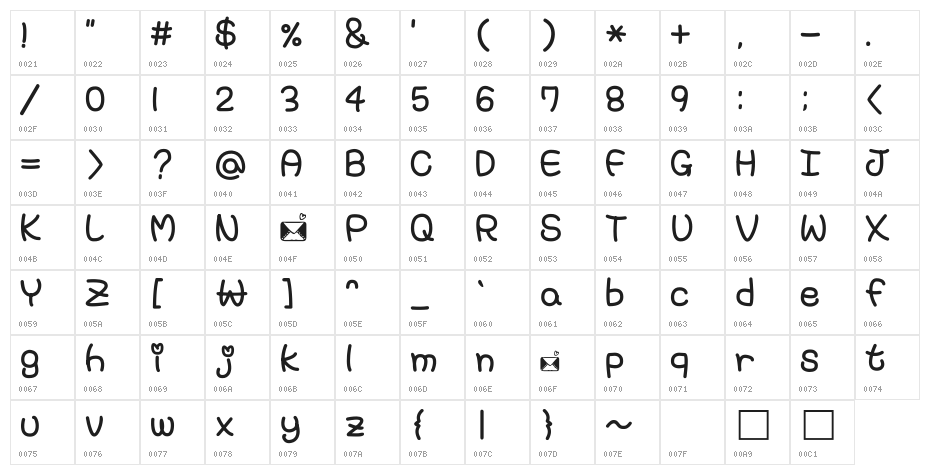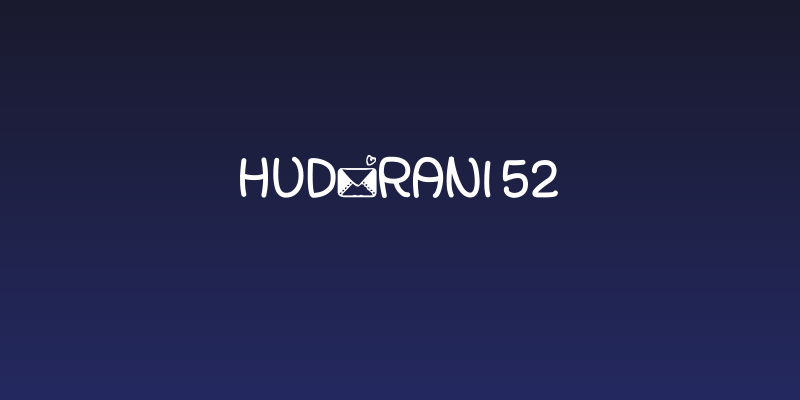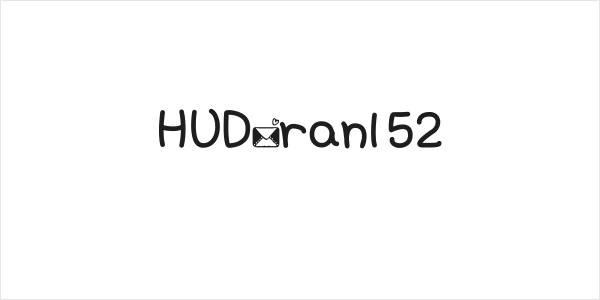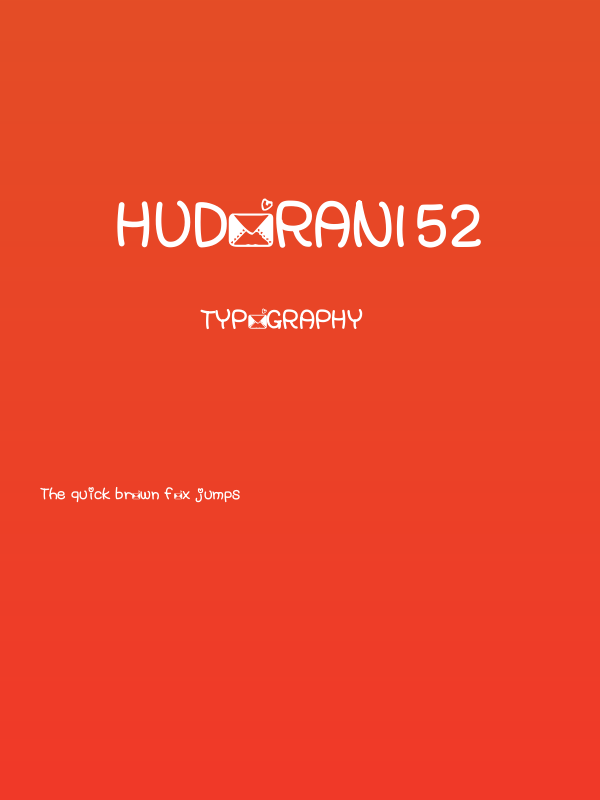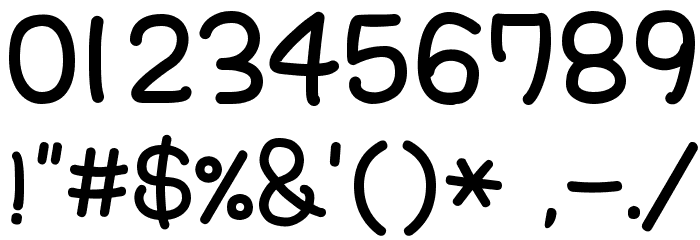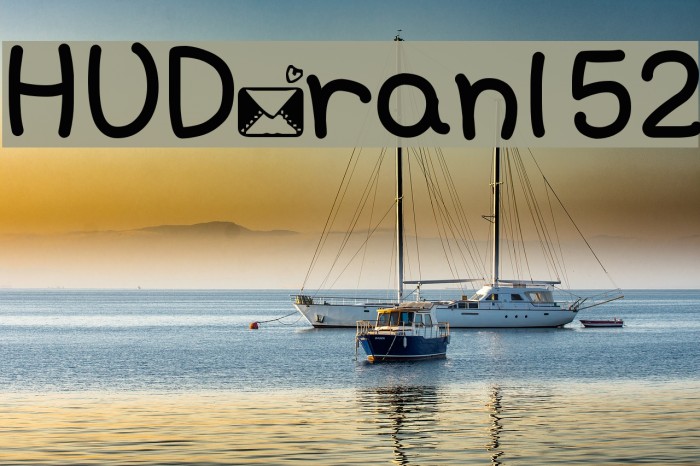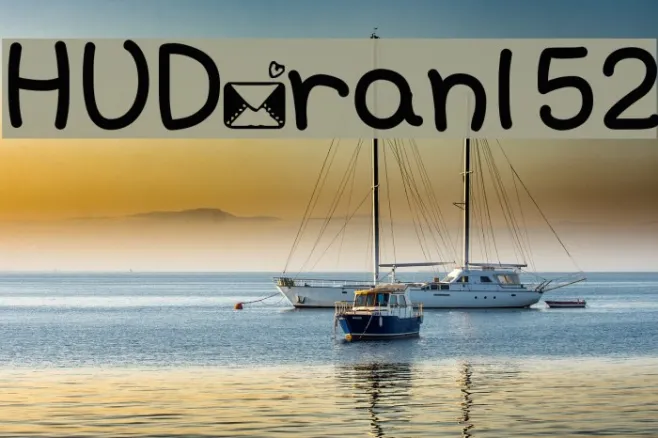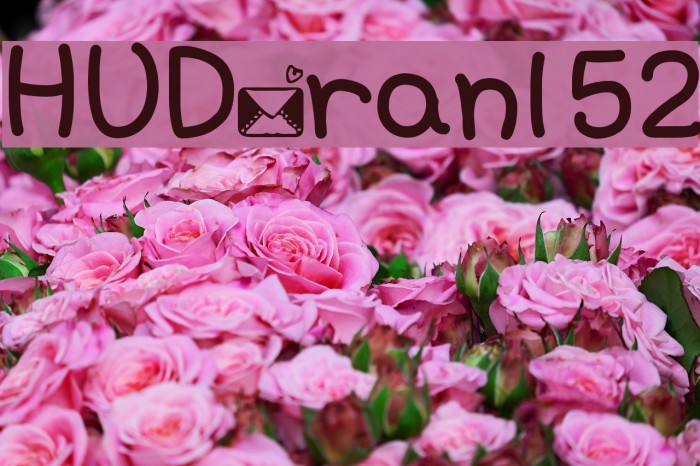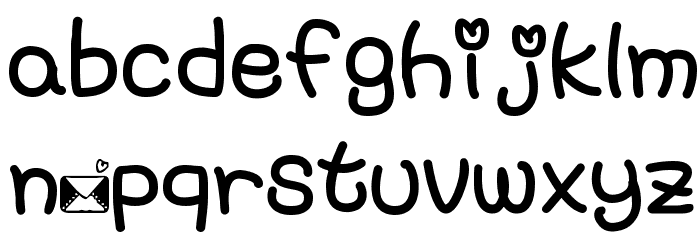
HUDoran152 Font
HUDoran152 Description
This playful and whimsical font features rounded, bold characters with a hand-drawn aesthetic. The uppercase and lowercase letters are consistent in their rounded forms, creating a friendly and approachable look. Unique elements, such as the heart-shaped dots on the 'i' and 'j', add a touch of charm. The numbers are equally rounded and bold, maintaining the font's cohesive style. Special characters are creatively designed, with some incorporating playful elements like hearts and envelopes, enhancing the font's decorative appeal. This font is ideal for projects that require a fun and informal tone.
| Overall Style | Whimsical, Playful |